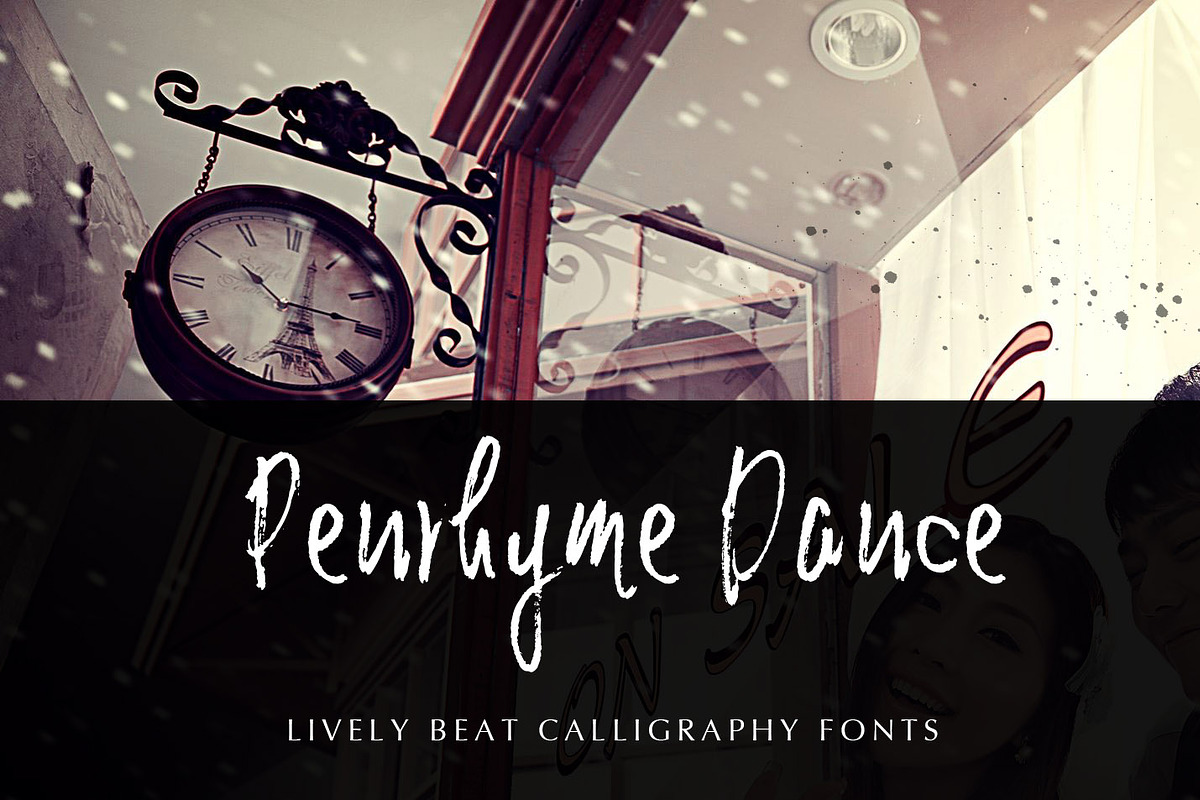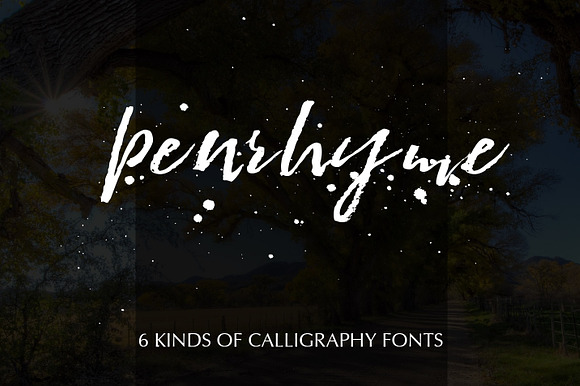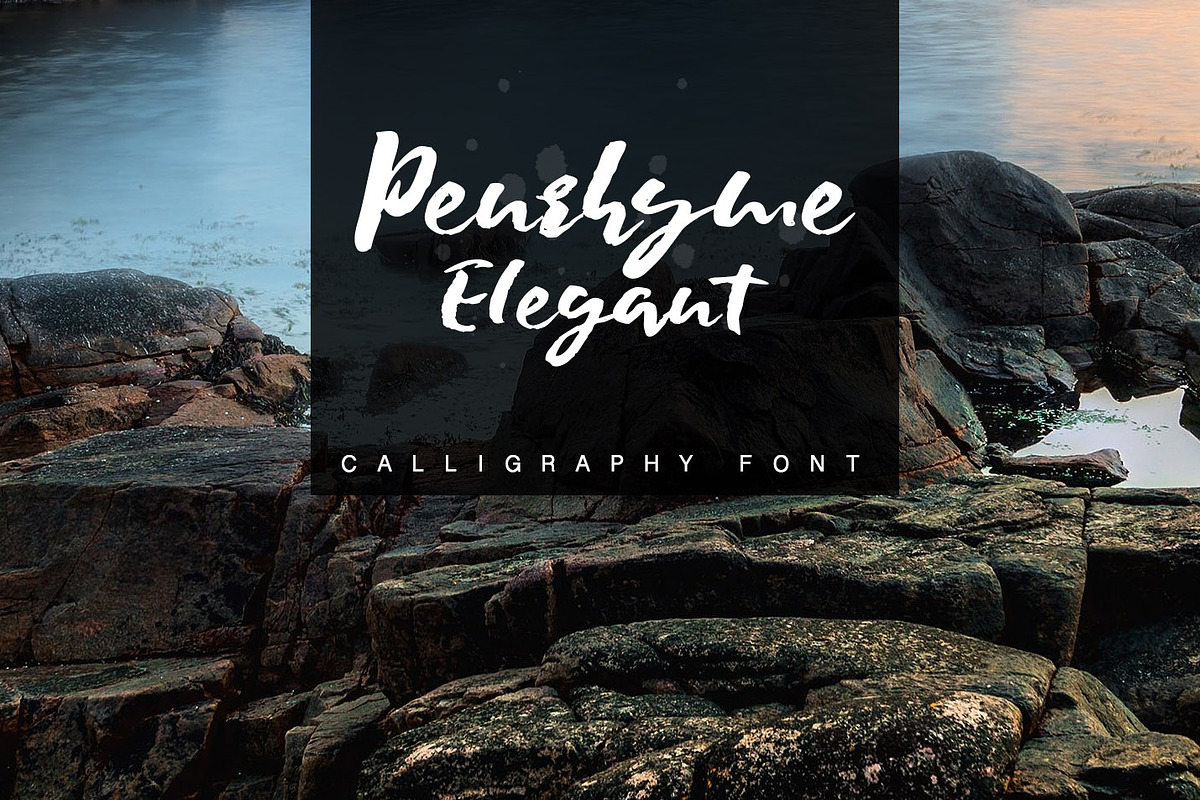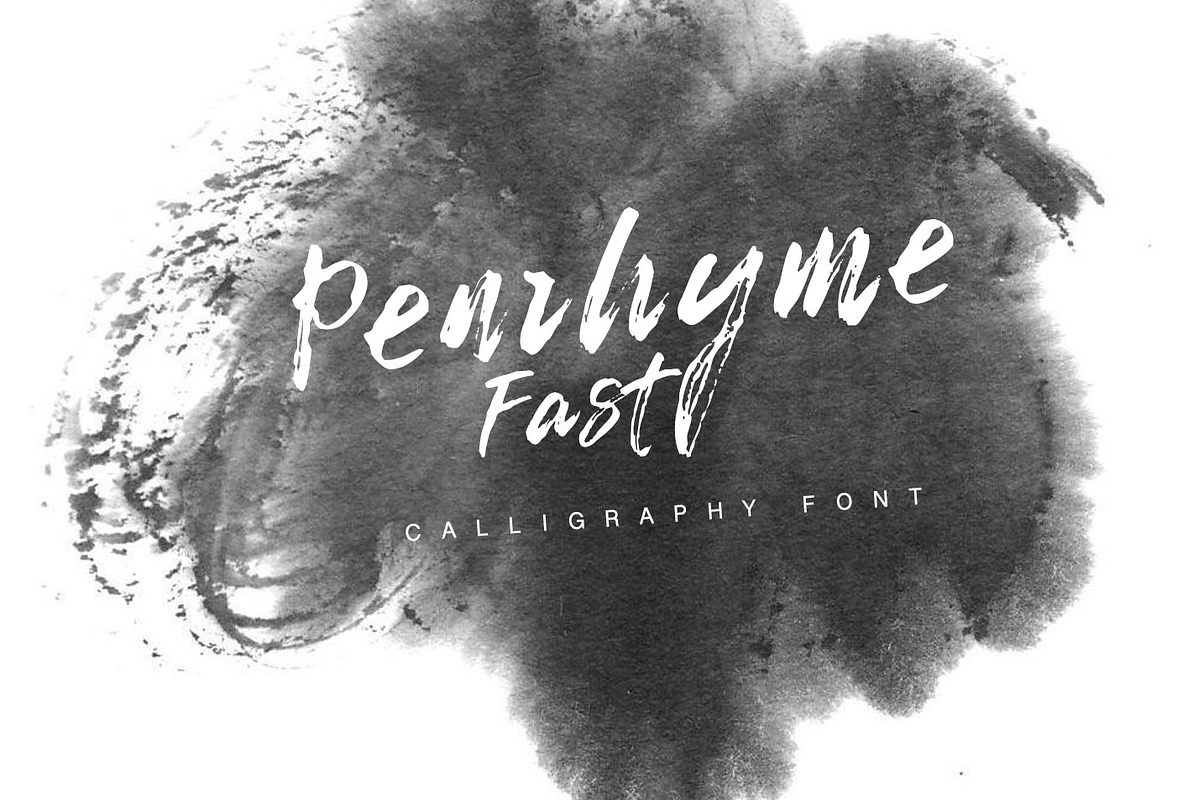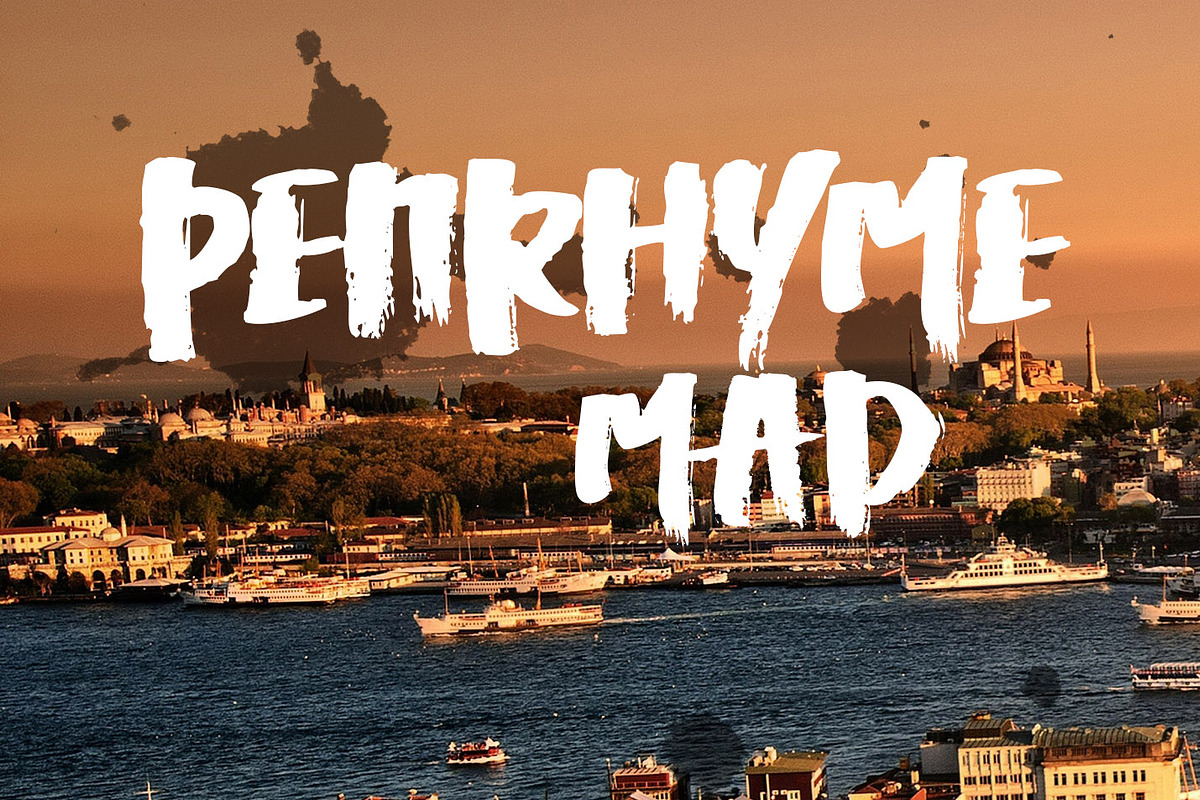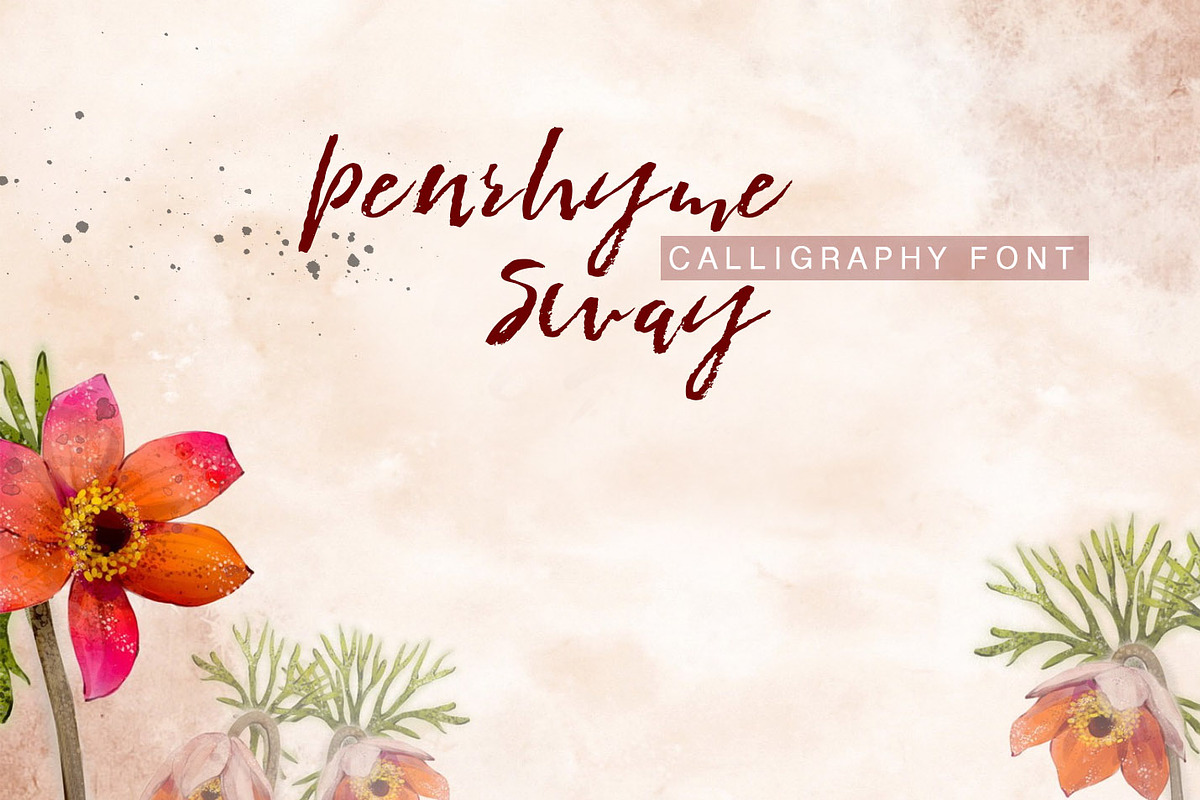
Penrhyme Calligraphy Font
It's a set of calligraphy style fonts, include 6 fonts, they are Penrhyme Dance, Penrhyme Elegant, Penrhyme Fast, Penrhyme Flexible, Penrhyme Mad, Penrhyme Sway. can be used for Logo, books, advertisements, flyer,web etc.
Penrhyme Calligraphy Font by alphadesign fits naturally into Branding, posters, packaging, typography.